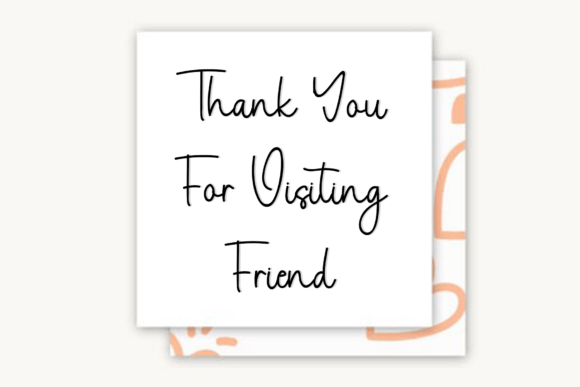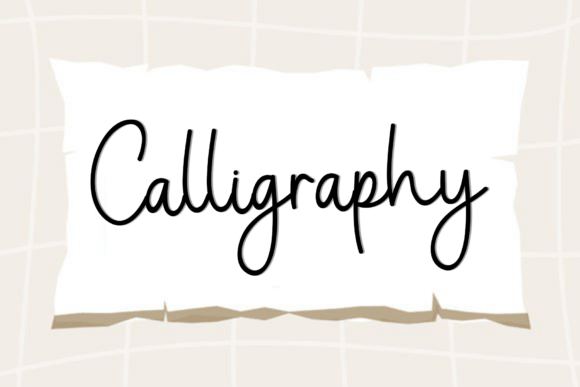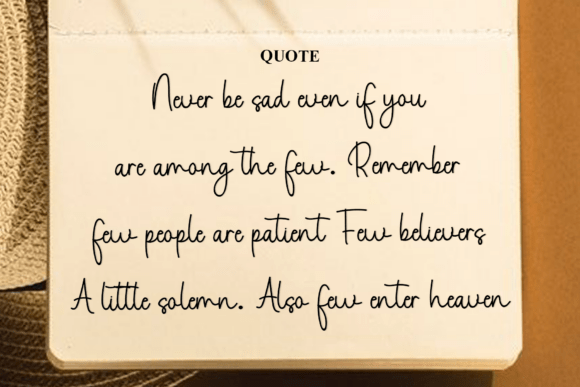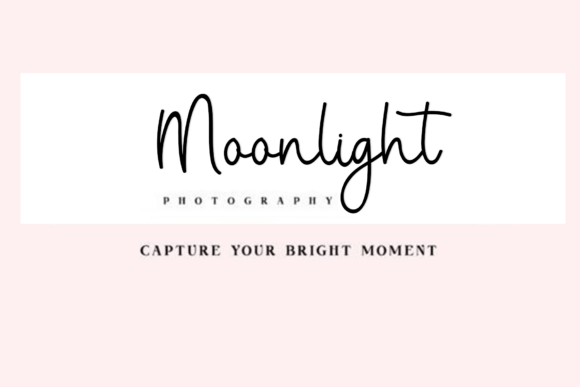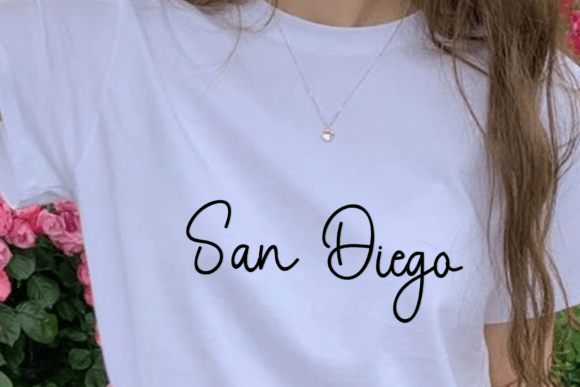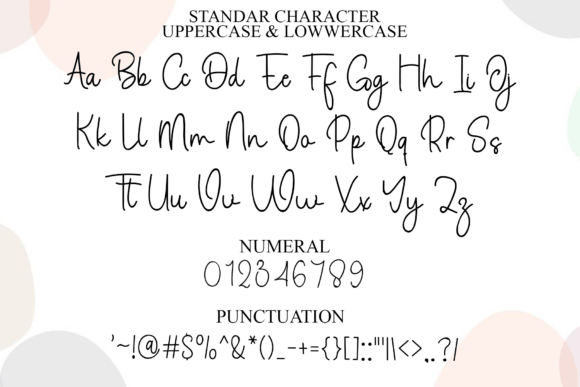
Introduction to New Year December Font
New Year December is a casual and creative font that exudes warmth and friendliness.
Key Features of New Year December Font
Why Choose New Year December Font?